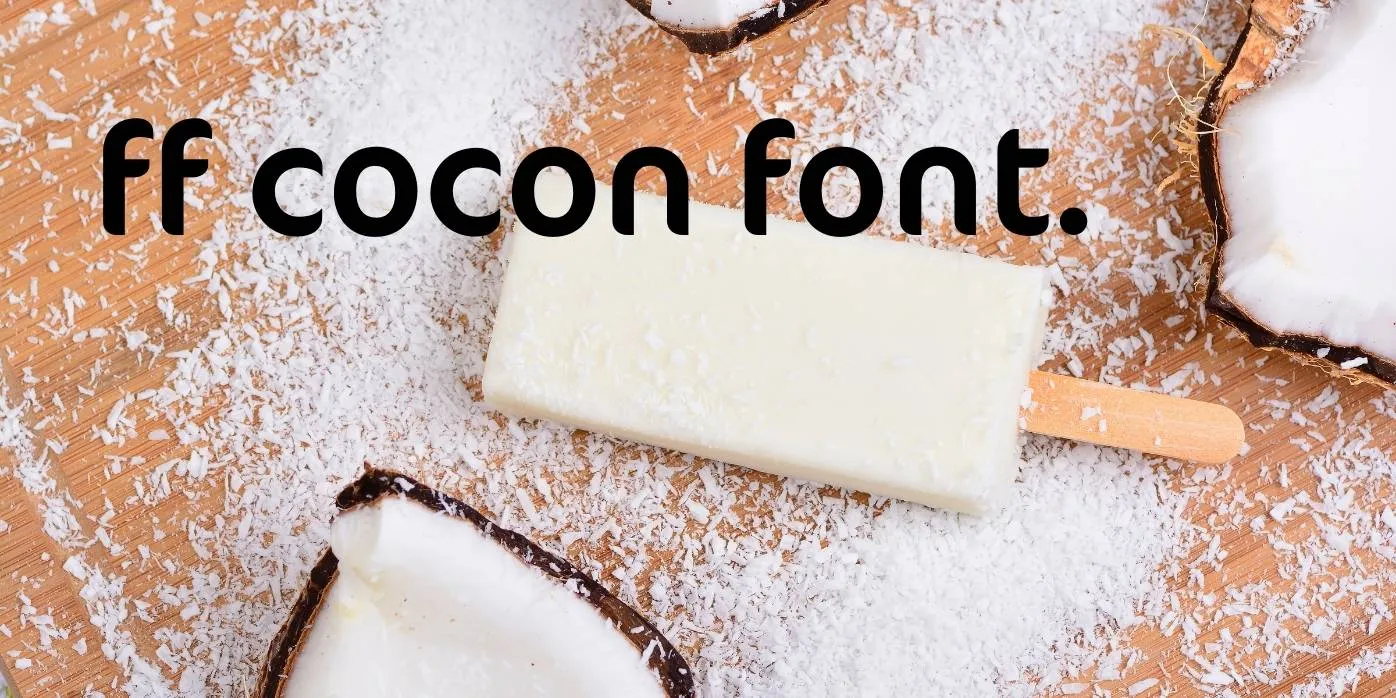
FF Cocon Font
This FF Cocon font family was created by Sandra Fauconnier and Philippe Moesch who were working at Linotype at that time. This typeface had a modern appearance in 1993. This awesome  Font is a sans serif font family based on FF Scala Sans Serif Font designed by Martin Majoor of the same year. It is a Google font.
This stylish Font was vectorized in 1993 by Post Typography. Gotham font is similar to this typeface. It has massive fame in the industry. The unique features of this font are its distinctive shapes, curves, and angles of letter-forms that make it popular.
This Font has clean features. this classy Font is originally designed for headlines. FF Cocon font has 6 different weights, with each weight having a single cut of italics. This cozy Font was made available to the computer markets.
A distinctive feature of this Font is its asymmetrical digits and characters, as well as its clean lines and angles. It is the best choice for logos, headlines, and other display purposes. Its tool generator helps in many graphics designs.